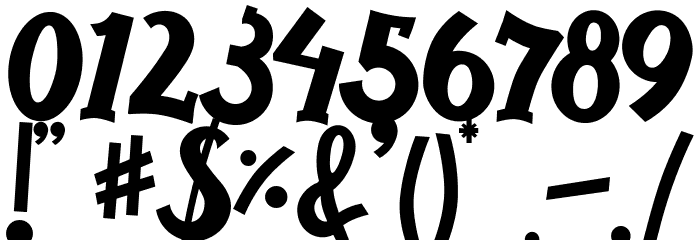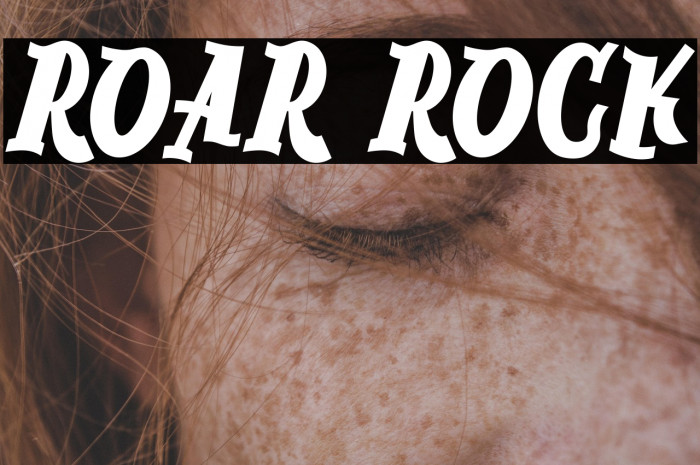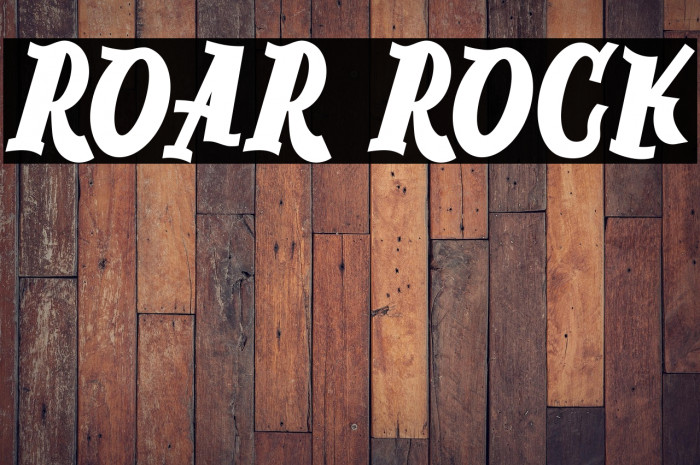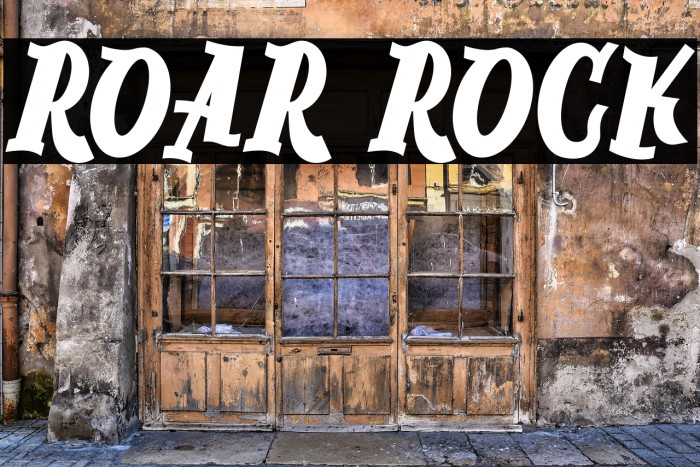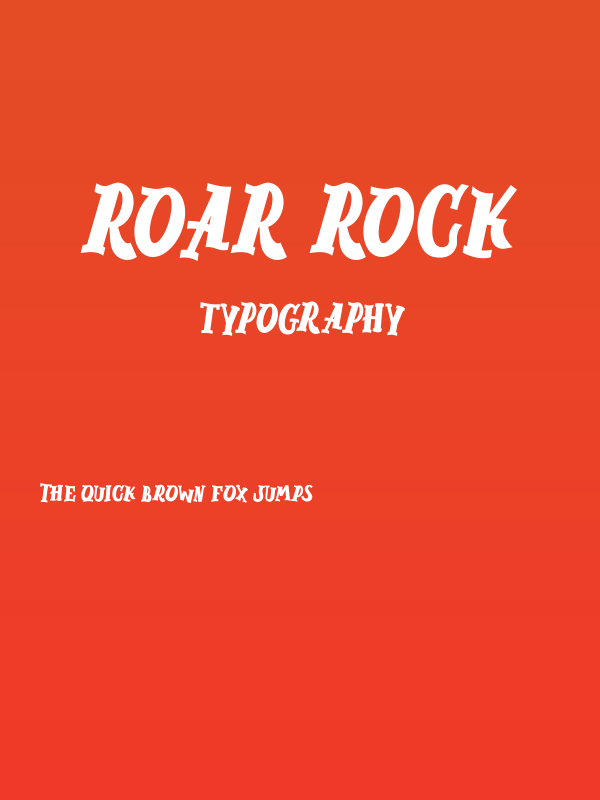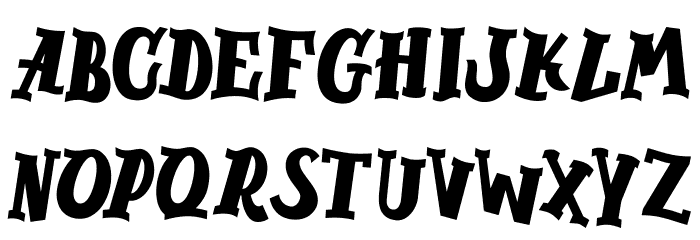
ROAR ROCK Font
ROAR ROCK Description
This font features a bold and dynamic style with a strong presence. The letters are slightly slanted, giving them a sense of movement and energy. The strokes are thick and consistent, creating a robust and impactful appearance. The characters have a playful yet aggressive look, making them suitable for attention-grabbing designs. The numbers and special characters maintain the same boldness and style, ensuring a cohesive look across all elements. This font is ideal for projects that require a strong visual impact.
| Proposed Projects | Perfect for posters, logos, headlines, and branding materials that need a strong visual impact. |